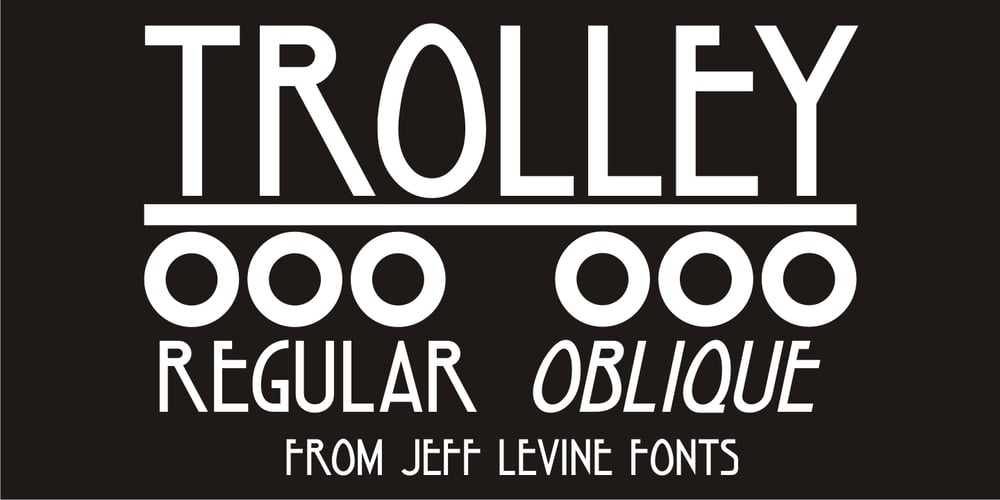
Trolley JNL Font Family was designed by Jeff Levine and published by Jeff Levine. Trolley JNL contains 2 styles and family package options. The Art nouveau era sheet music “Goodbye Sweet Old Manhattan Isle” (1905) offers up a classic hand lettered sans reflective of that era. It is available digitally as Trolley JNL in both regular and oblique versions.